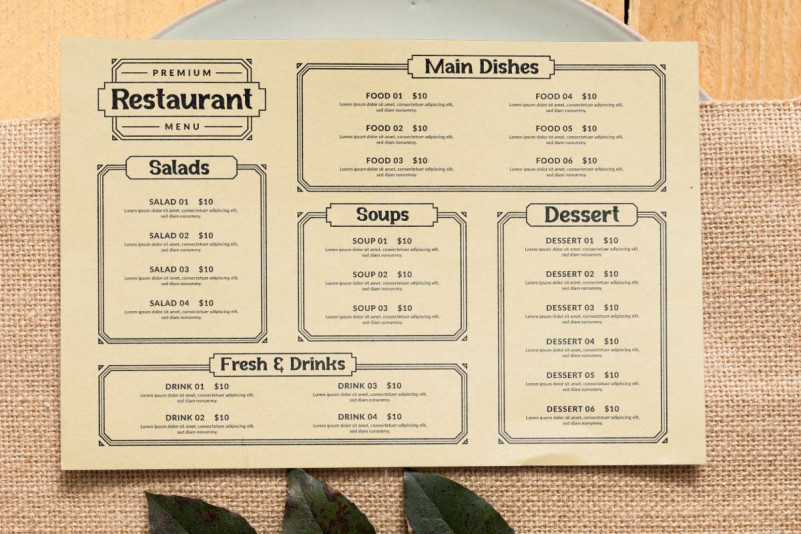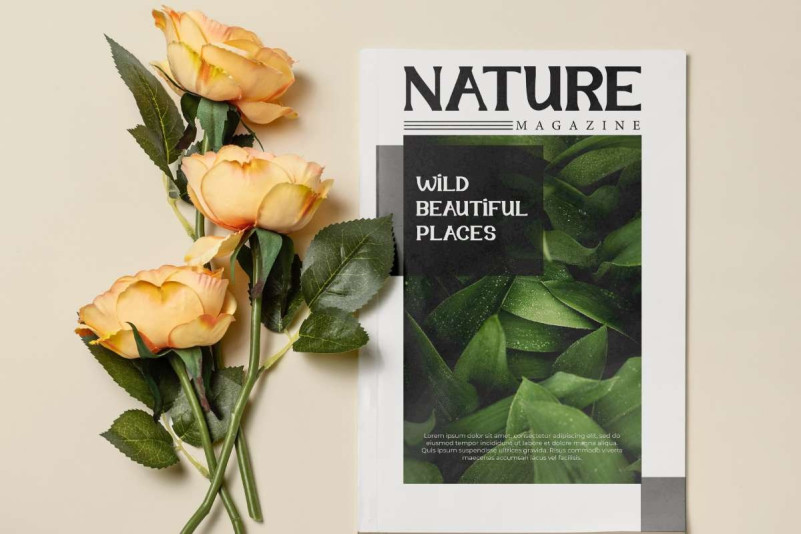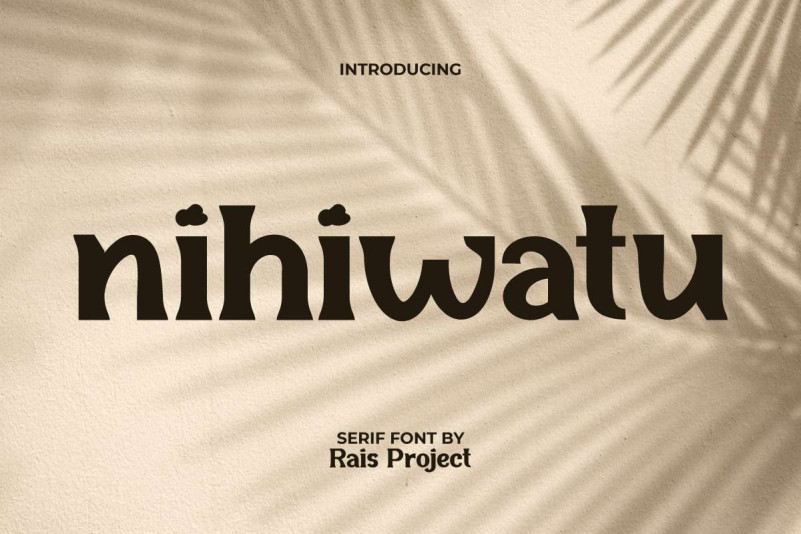
Nihiwatu Font
Nihiwatu Serif Font is a unique serif display font with various different styles: Regular, Italic, and, that which will make your designs attractive, such as apps, brand logo, business card, custom design, cover, invitation, label, menu, poster, product packaging, quotes, screen print, signage, title, web page, etc.
Nihiwatu Font includes a full set of Uppercase and Lowercase Letters, Numerals, and large range of punctuation. This flawless font will be suitable for various industries, such as architect, beauty product, café, event or wedding organizer, fashion, florist, furniture, photo studio, printing, publishing, restaurant, salon and spa, etc.